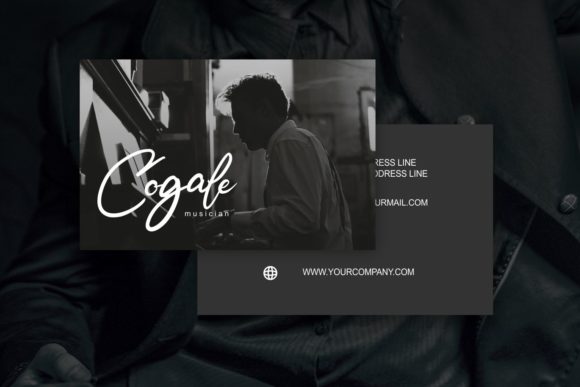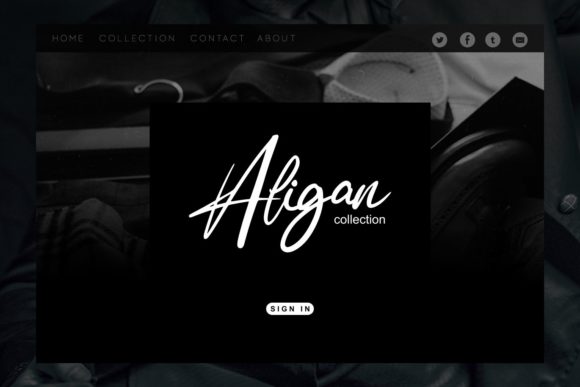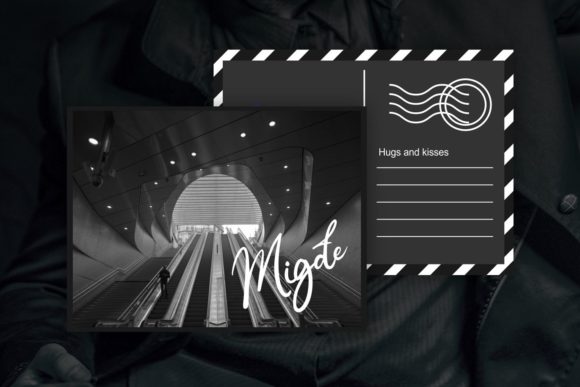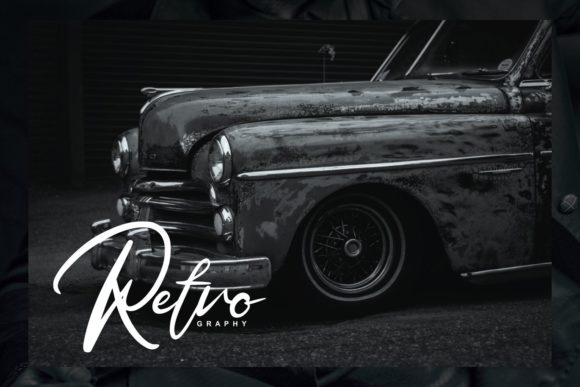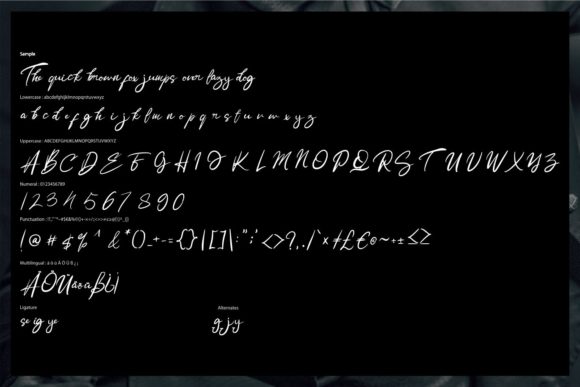
HomeScript FontsOsage Font Script Fonts Osage Font FacebookXPinterestWhatsApp Osage Font Poster 2 Osage Font Poster 3 Osage Font Poster 4 Osage Font Poster 5 Osage Font Poster 6 About Osage Font Osage is a playfully modern script font with a cute feel. Get inspired by its modern vibe. DOWNLOAD NOW People also explored Saturday Night Font Signature Font Monttany Castelone Font Jimuella Font Jungle Font Valentine Font Hand Script Font Brush Elementary Font Blackline Font 503 0 TagsOsage Font Previous articleDream Without Fear FontNext articleBeauty and the Best Font LEAVE A REPLY Cancel reply Comment: Please enter your comment! Name:* Please enter your name here Email:* You have entered an incorrect email address! Please enter your email address here Website: Save my name, email, and website in this browser for the next time I comment. Personal Use Free Brandon Bromley Personal Use Free Read more about this font Juliagar Personal Use Free Read more about this font Welliana Personal Use Free Read more about this font Sunflower Personal Use Free Read more about this font BLOG Modern Sans-Serif Fonts That Brands Love in 2025 In 2025, modern sans-serif fonts remain a top choice for brands looking to project clarity, professionalism, and... Top 10 Handwritten Fonts That Elevate Your Designs Fonts That Capture the Spirit of New York City 5 Fonts That Will Dominate Design Trends in 2026